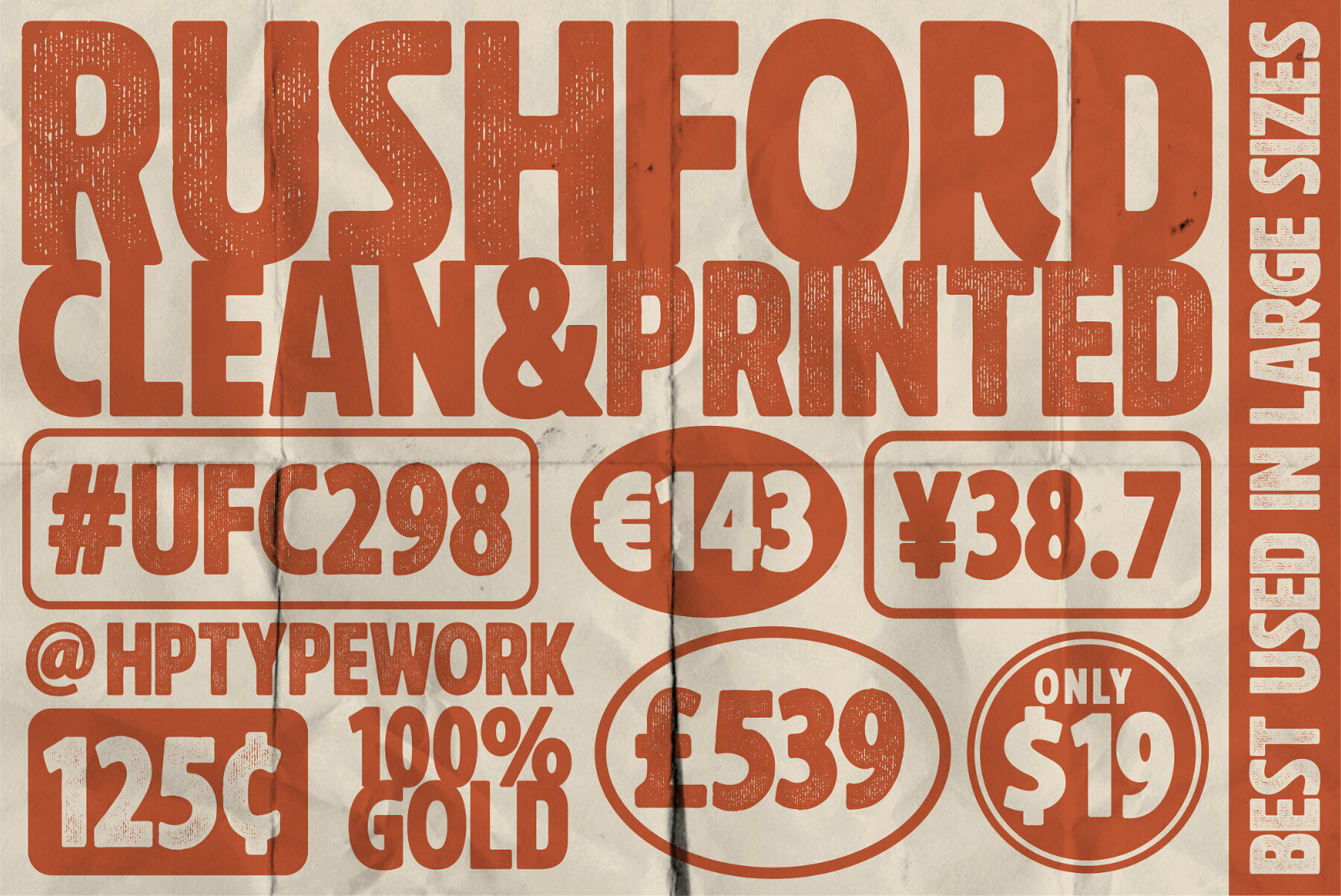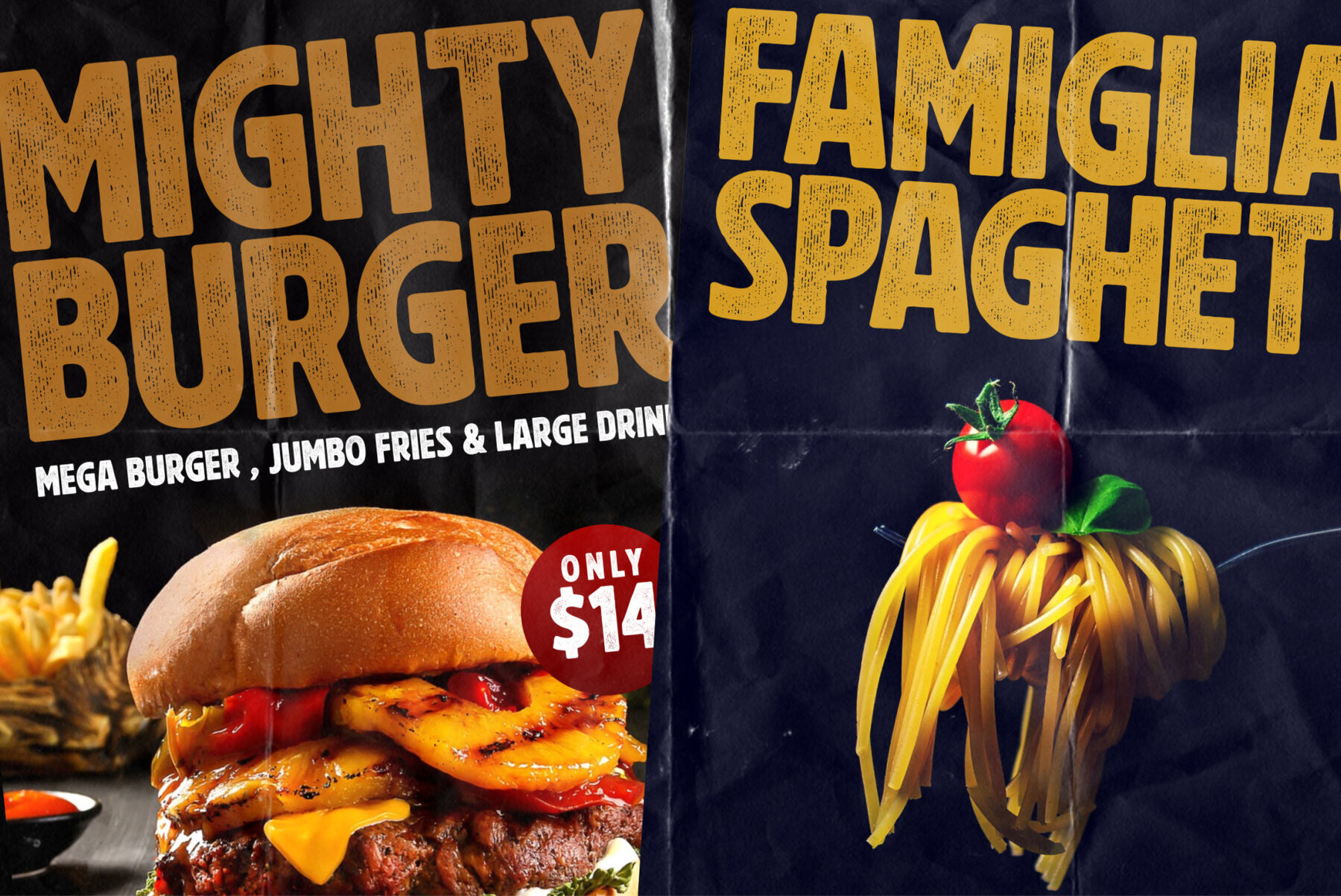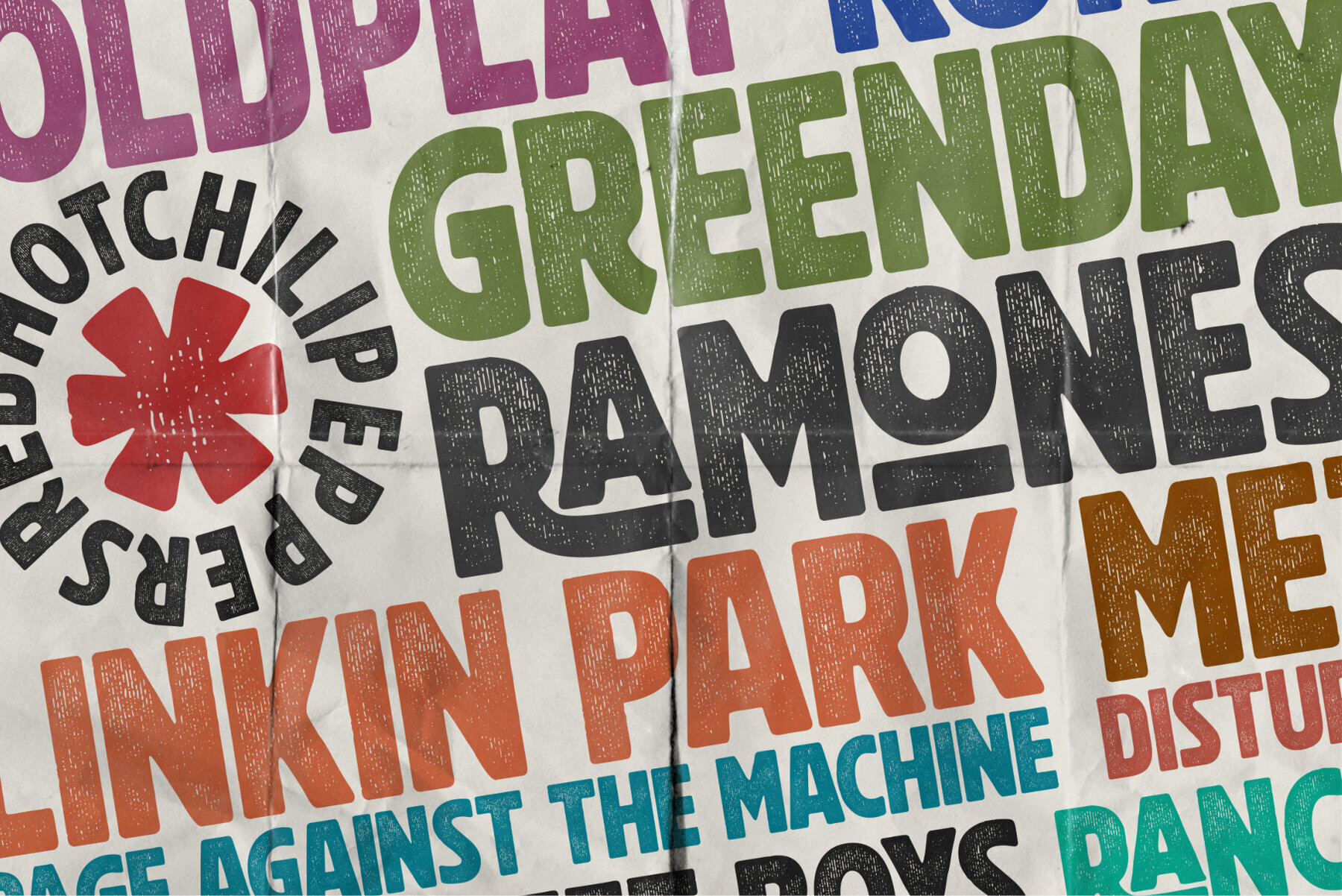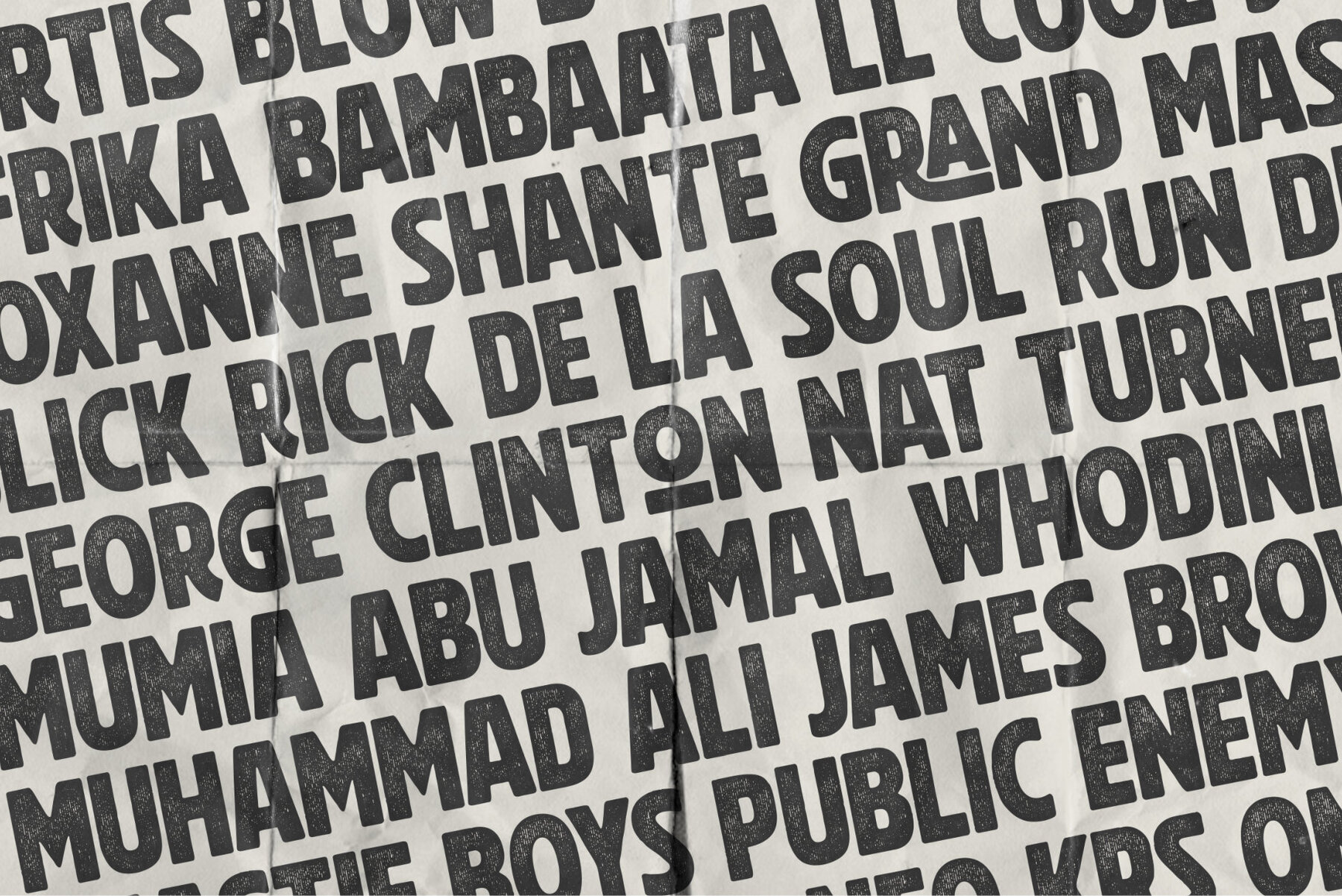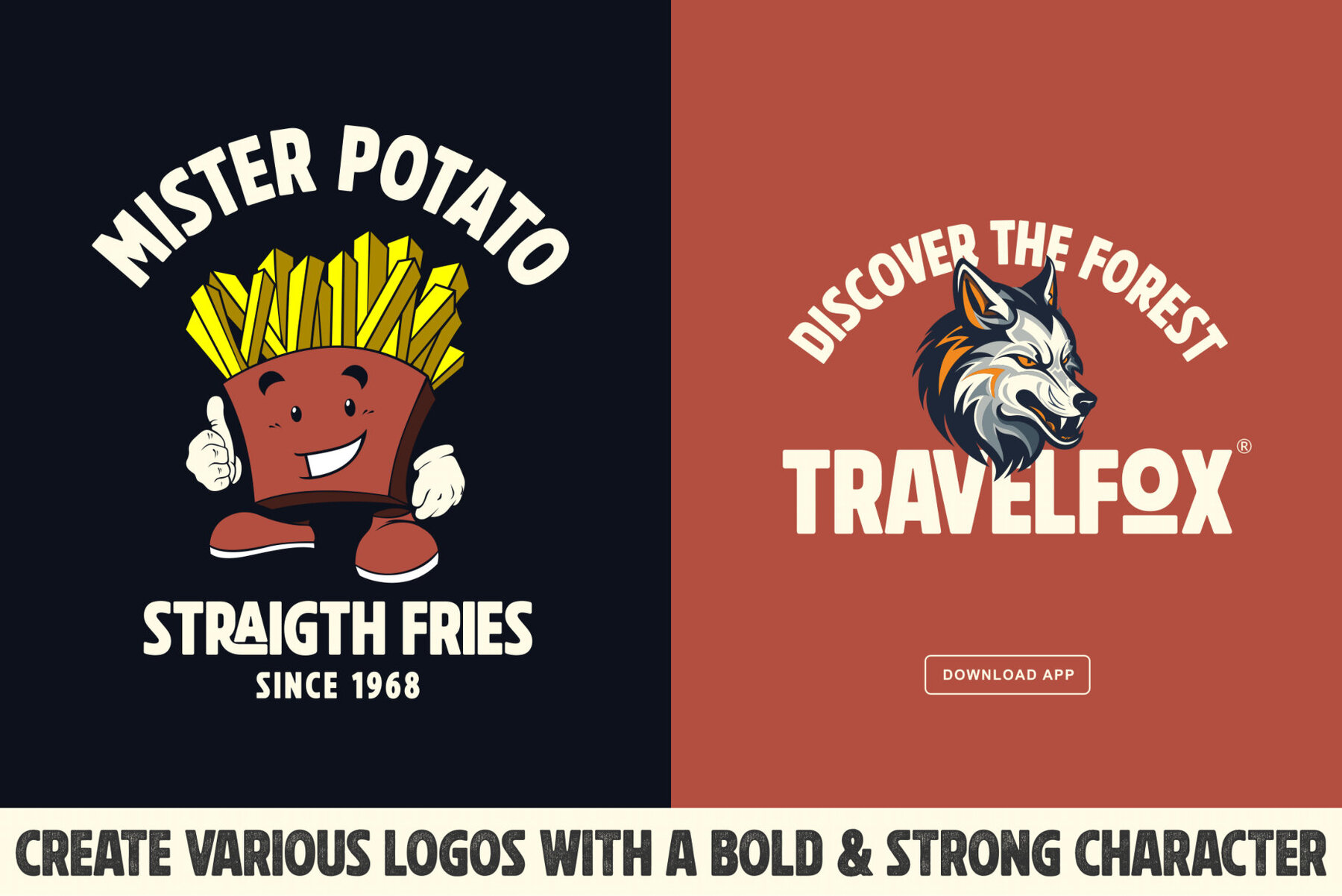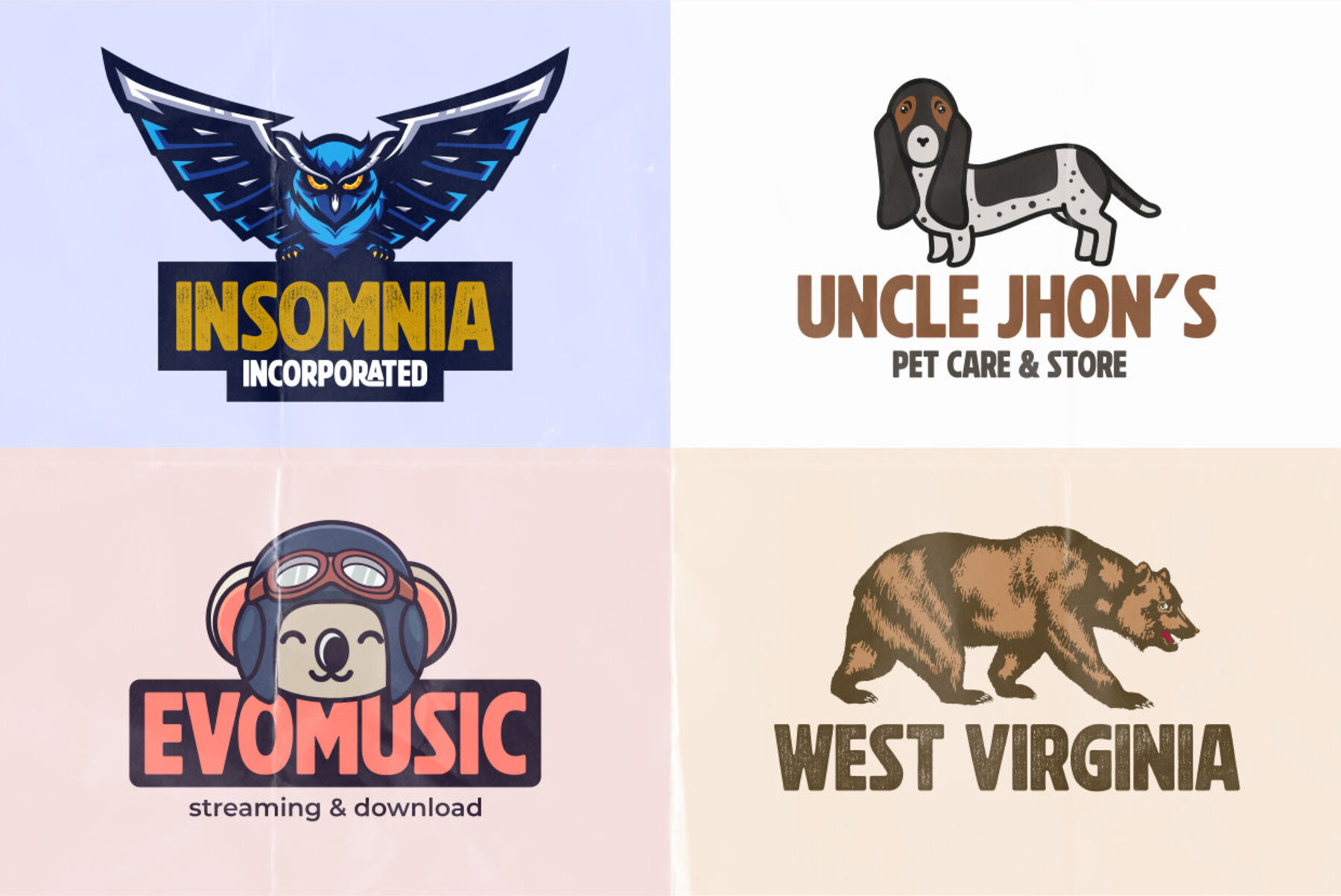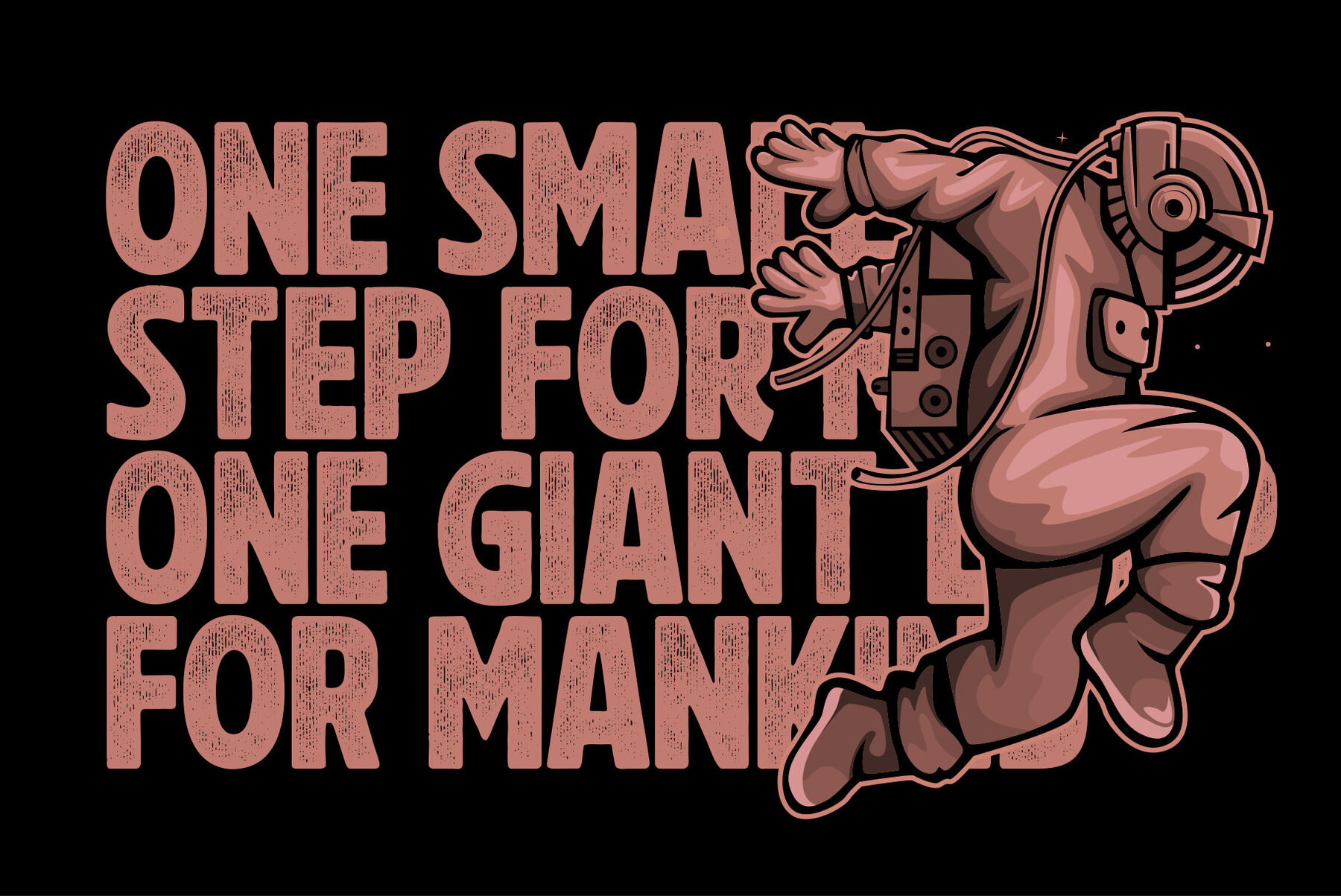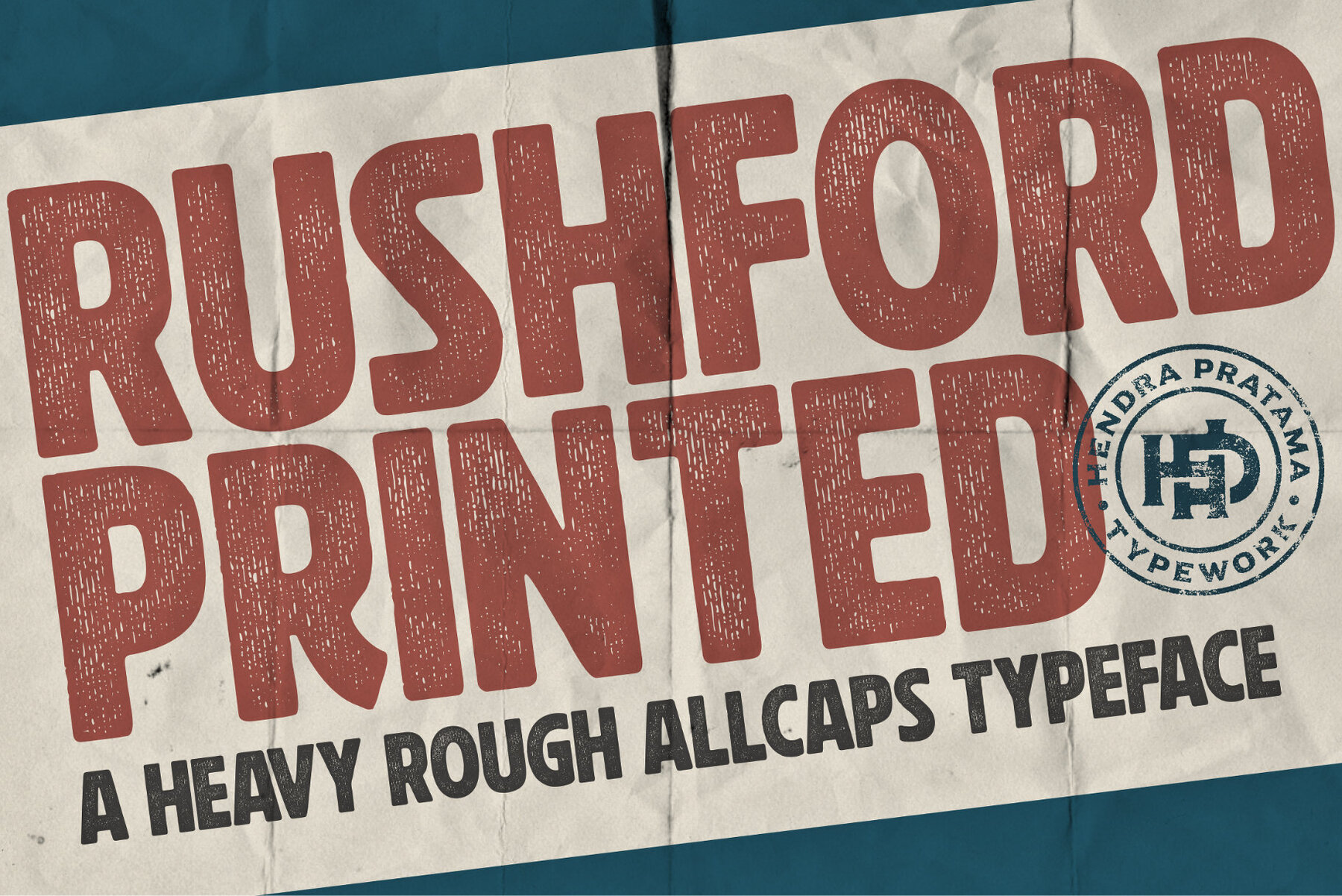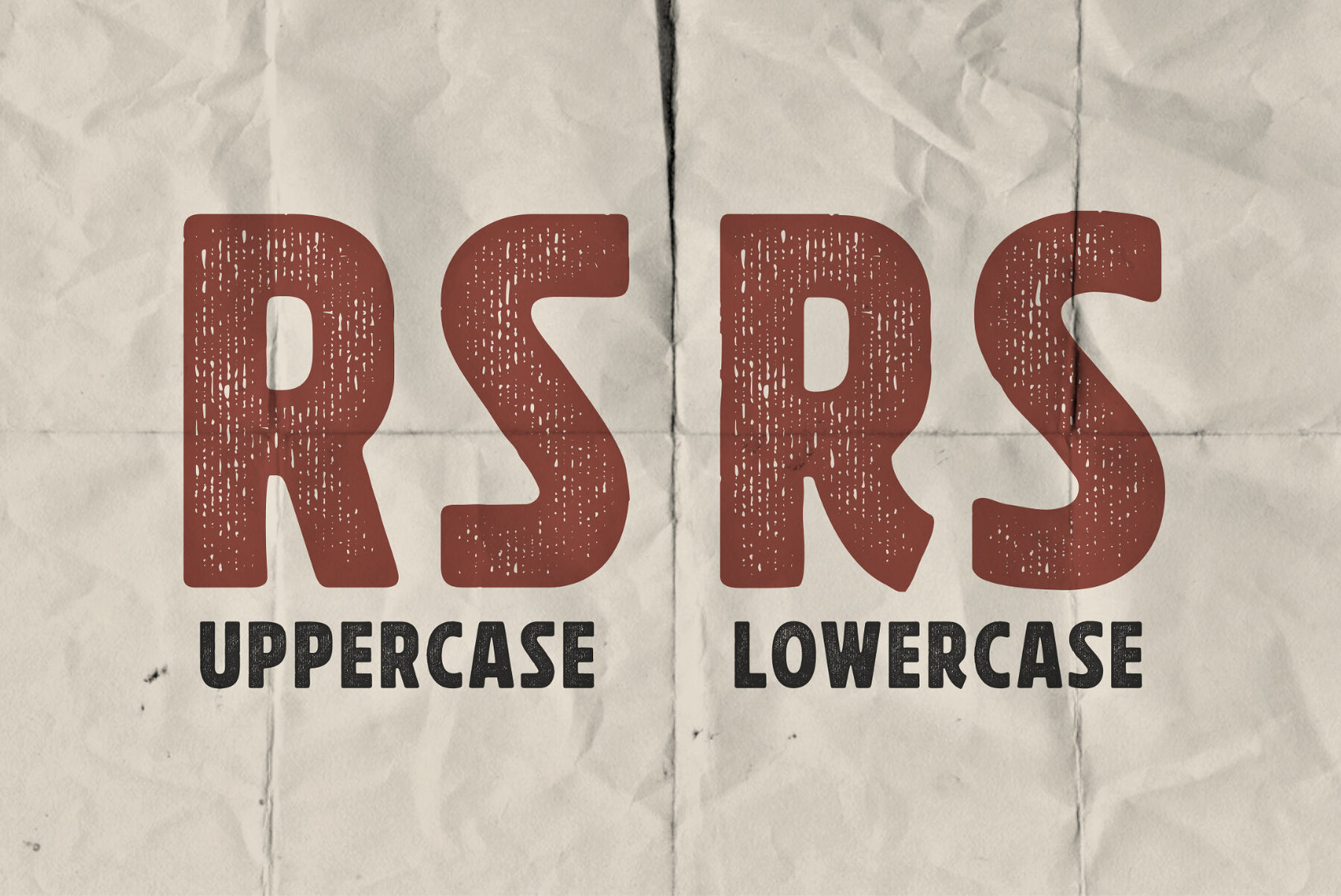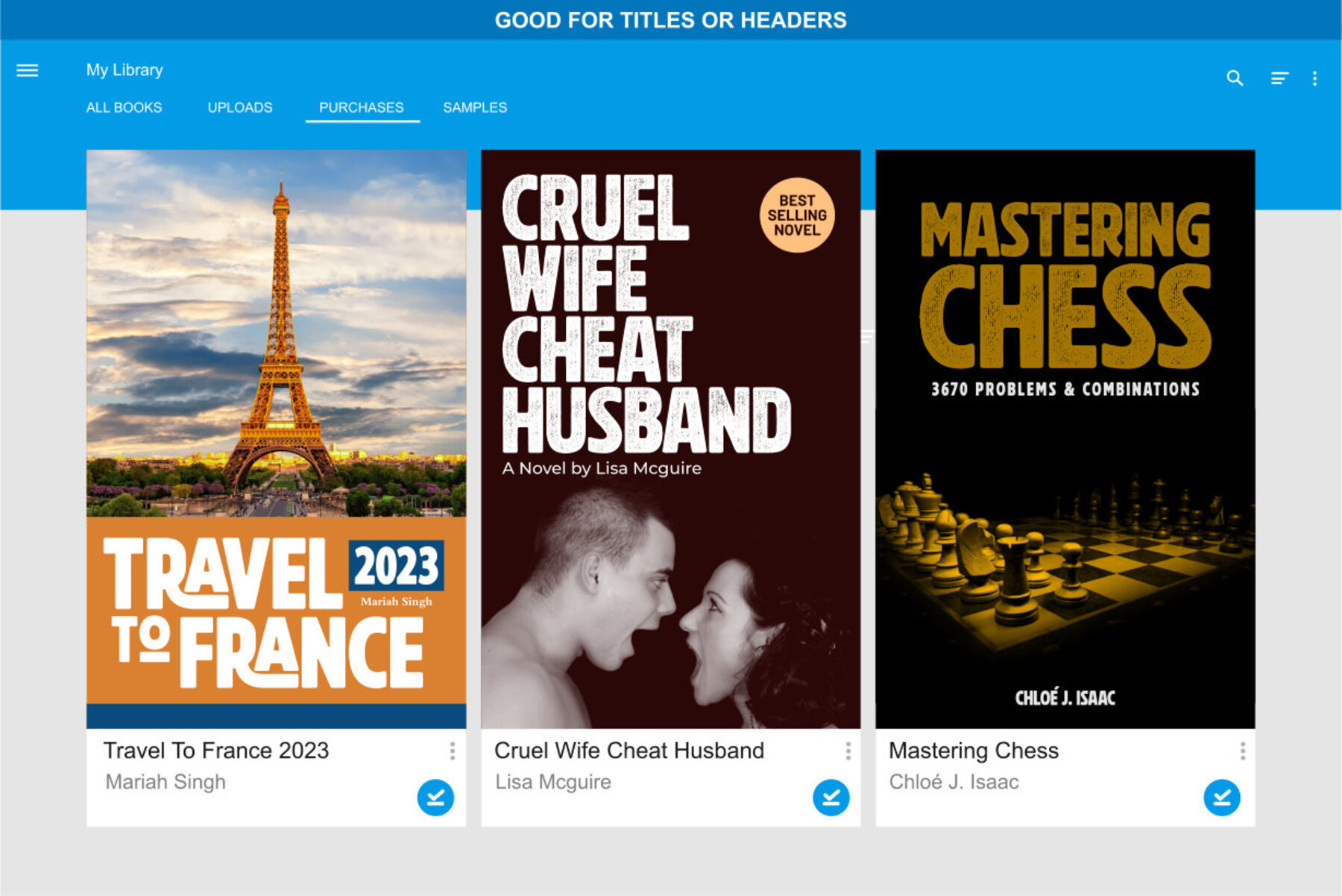
Rushford Font
WARNING! Roughed version is quite heavy to open. Highly recommended to install the font without previewing it first. Rushford fonts come in 2 different styles, with same character; Bold & Strong, and can evoke a different emotions. It comes in both clean and rough styles in only Uppercase Latin characters. When choosing a font, it’s important to consider the visual theme of your design. A clean bold fonts can lend a more stronger tone to your design, making it a great choice for Logo or Title. On the other hand, a textured fonts can lend a more natural printed-looks, making them perfect for designing 70s-80s themed parties. It can be used for various design purposes ; Posters, Logos, Packaging, Books or Movie Titles. In summary, these fonts are versatile and can add a unique look to any design project. If you want to add a touch of nostalgia and elegance to your designs, these fonts were timeless asset. With plenty of vintage and retro design resources available, it’s easy to find the perfect ideas for your next project.